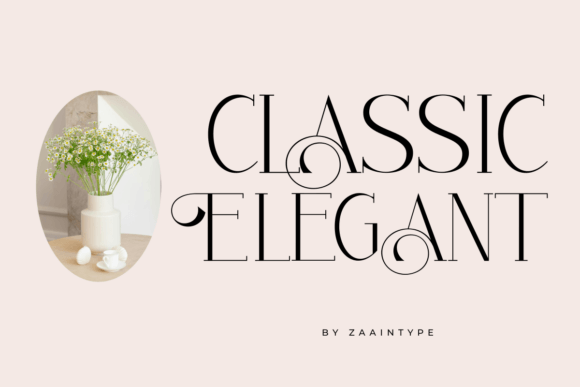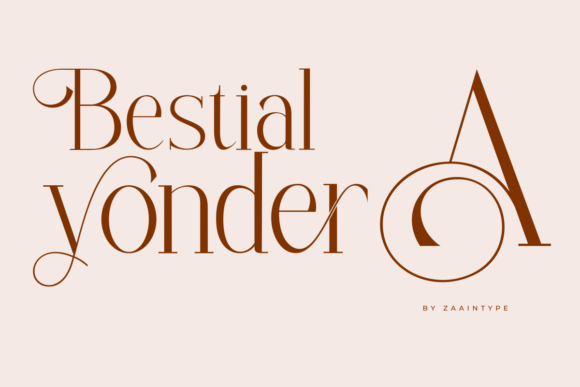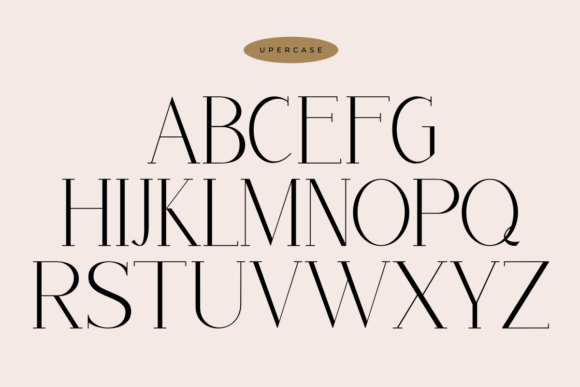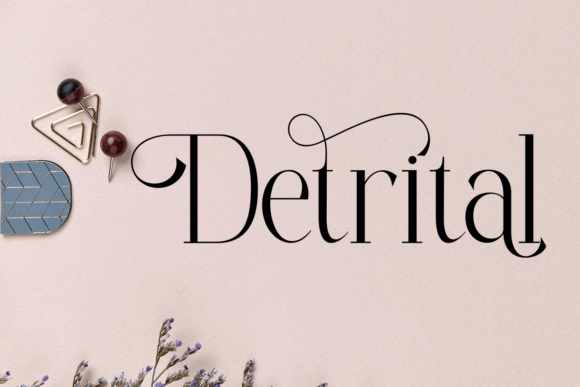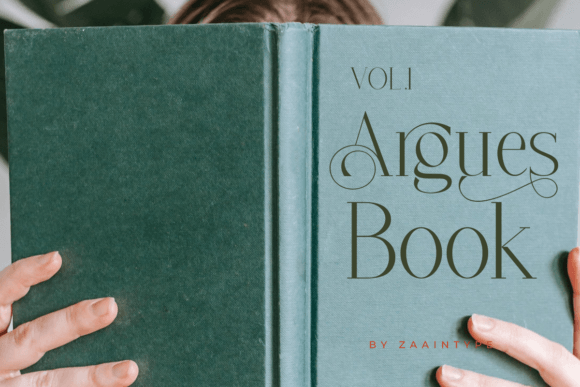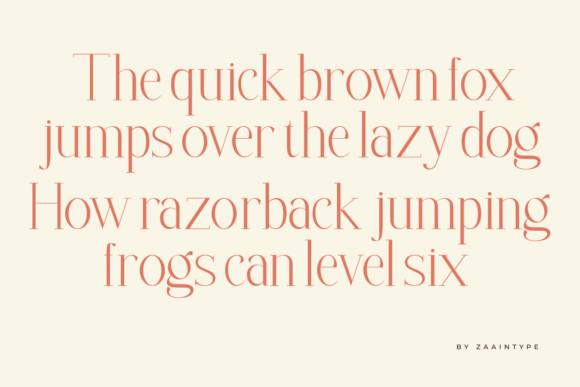
Unlock the Power of Artomy Font
As a designer, you’ve probably experienced that moment when a single font can elevate your entire project. It’s the spark that sets your creativity ablaze, guiding the direction of your design and leaving a lasting impression on your audience. For many, that spark comes from discovering the perfect font – one that captures the essence of their vision and brings it to life.
Enter Artomy Font, a bold and dynamic display font that’s redefining the world of typography. With its geometric architecture and asymmetrical flair, Artomy Font is the perfect addition to any designer’s toolkit. Whether you’re looking to create a striking logo, a show-stopping poster, or a cutting-edge digital campaign, Artomy Font is the key to unlocking your full creative potential.
Artomy Font Key Features
- Font Family: Artomy Font comes in a single font family with multiple weights and styles, offering a total of 12 fonts.
- Unique Characteristics: Artomy Font features a unique blend of modern and traditional design elements, with intricate details and subtle flair, making it ideal for creative and artistic projects.
Artomy Font Review
Firstly, I’d like to say that the Artomy Font has some amazing qualities that make it a great addition to any design project. The ✨ elegant and modern design ✨ really stands out. The font is perfect for creating a sophisticated and luxurious look, especially when used for headings and titles.
Some of the other things that work well in the Artomy Font include:
- ✨ Excellent legibility ✨ – the font is clear and easy to read, even at smaller font sizes.
- ✨ Versatility ✨ – the Artomy Font can be used for a wide range of design projects, from corporate branding to creative projects.
- ✨ Unique style ✨ – the font has a distinctive look that sets it apart from more common fonts.
- ⚠️ Limited language support ⚠️ – the font may not support all languages, which could be a problem for global design projects.
- ⚠️ May not be suitable for body text ⚠️ – the font is best used for headings and titles, as the text may become too dense and difficult to read at smaller font sizes.
Overall, I think the Artomy Font is a great choice for designers who want to add a touch of elegance and sophistication to their projects. Just be mindful of the limitations and use it accordingly.
Artomy Font is ideal for creative projects that require a unique, elegant look. Use it for:
– Headings and titles
– Infographics and data visualization
– Social media graphics and ads
– Wedding invitations and event materials
Getting the Most Out of Artomy Font
To get the most out of Artomy Font, experiment with different font sizes, colors, and styles to create a unique look. Combine it with other design elements, such as icons and images, to add visual interest. Use the font consistently throughout your design to create a cohesive brand identity.